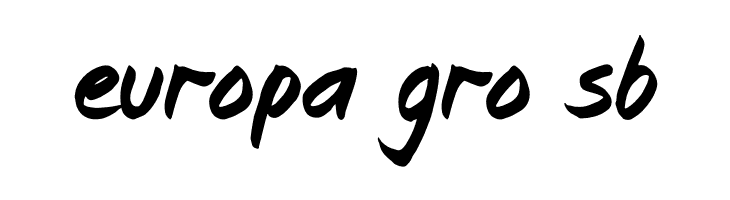
A modern blackletter font with circular enclosures and bold, angular strokes.
An ornate Blackletter font with bold, angular strokes and intricate details.
A playful, handwritten font with uniform strokes and rounded edges.
A fluid, cursive font with a modern handwritten style.
A playful and whimsical font with characters depicted as unique animal illustrations.
A bold, modern font with geometric influences and uniform stroke thickness.
A bold, decorative font with a textured, vintage appearance.
A chaotic, thorny decorative font ideal for horror-themed designs.
A bold, distressed font with a vintage, textured appearance.
A bold, textured italic font with a modern, edgy style.
A bold, textured, and slanted font with a distressed appearance.
A bold, playful font with cartoon-like, exaggerated letterforms.
A whimsical and decorative font with elegant, flowing letterforms and playful flourishes.
A whimsical, handwritten font with playful loops and swirls.
A modern, outline-style font with geometric precision and playful aesthetics.
A modern, geometric font with thin lines and a minimalist design.
A dynamic, expressive handwritten font with flowing cursive letterforms.
Hand-drawn cartoon icon font with playful, irregular lines.
A chaotic, edgy font with jagged, hand-drawn strokes.
A bold, dripping font perfect for spooky and eerie designs.
A bold, artistic font with sharp angles and unique embellishments.
A playful, hand-drawn font with freckle-like textures and bold outlines.
A bold, brush-stroke font with an energetic and artistic style.
A bold, high-contrast serif font with a classic yet modern appeal.
A bold serif font with high contrast and elegant serifs, perfect for impactful designs.
A modern sans-serif font with clean lines and excellent readability.
A playful, handwritten font with flowing, irregular letterforms.
A flowing, elegant script font with interconnected characters.
A dynamic and elegant script font with flowing cursive letterforms.
A bold, handwritten font with expressive, dynamic strokes.
A bold, expressive handwritten font with dynamic strokes and a casual vibe.
A classic and elegant script font with fluid, connected letterforms.
A bold, modern sans-serif font with a condensed and geometric style.
A bold, italic sans-serif font with a modern and dynamic style.